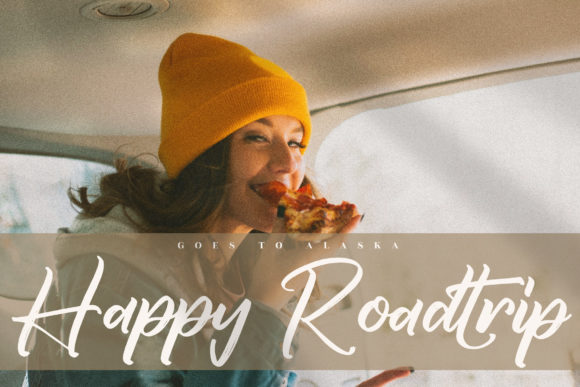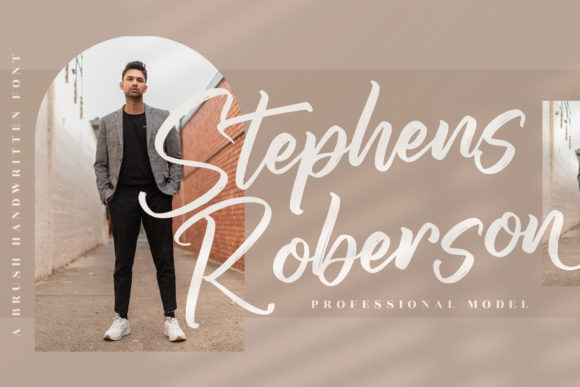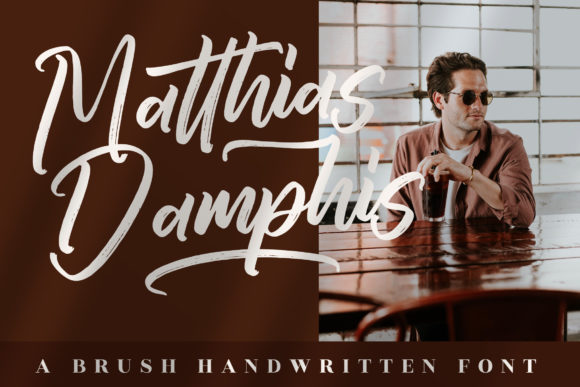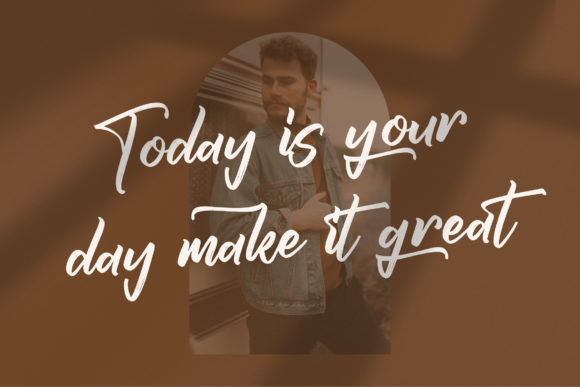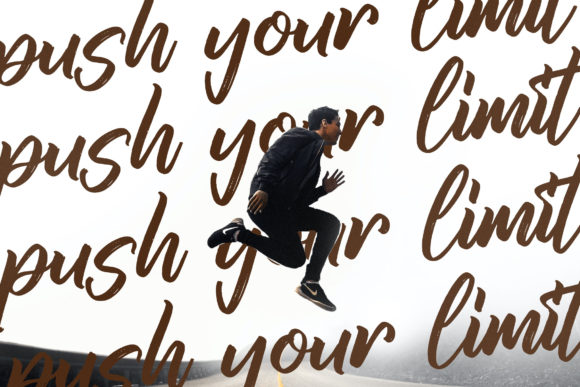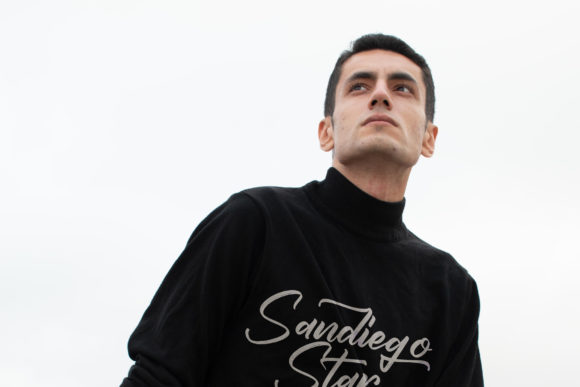
Introduction to Santtiago Raymond Font Font
Fonts play a crucial role in design, and the Santtiago Raymond Font font is a typeface that brings both character and versatility to any project. Whether you’re working on a branding project, a website, or a print design, the Santtiago Raymond Font font offers a unique style that can elevate your work.
Santtiago Raymond is a fashionable and delicate script font.
It is suitable for any projects such as: logos, branding projects, label, photography, watermark, special events, and all your other lovely projects that need a beautiful script taste This font is PUA encoded which means you can access all of the glyphs and swashes with ease.
Key Features of Santtiago Raymond Font Font
Why Choose Santtiago Raymond Font Font?
The Santtiago Raymond Font font is more than just a typeface – it’s a design tool that helps you communicate your message with style and clarity. Its unique character set and versatile design make it suitable for a wide range of applications, from elegant invitations to bold headlines.
With its carefully crafted letterforms and balanced proportions, the Santtiago Raymond Font font ensures readability and visual appeal across all mediums.
What makes Santtiago Raymond Font font special?
The Santtiago Raymond Font font stands out with its unique design, exceptional readability, and versatility across various design applications.